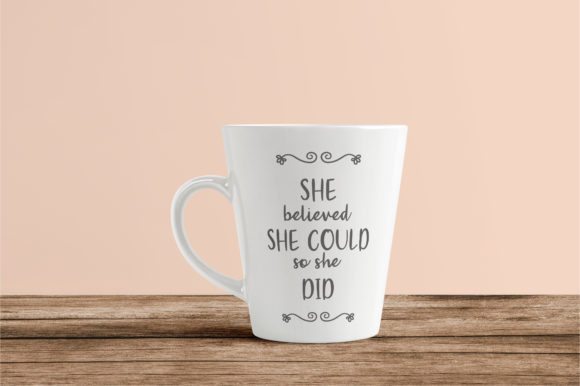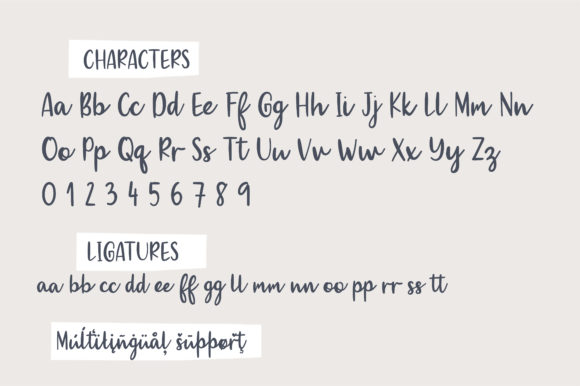
Birdie James Font
db-ku.com - Script & Handwritten -- Birdie James is a cute and casual handwritten font with an incredibly friendly feel. Whether you’re looking for fonts for Instagram or calligraphy scripts for DIY projects, this font will turn any creative idea into a true piece of art!